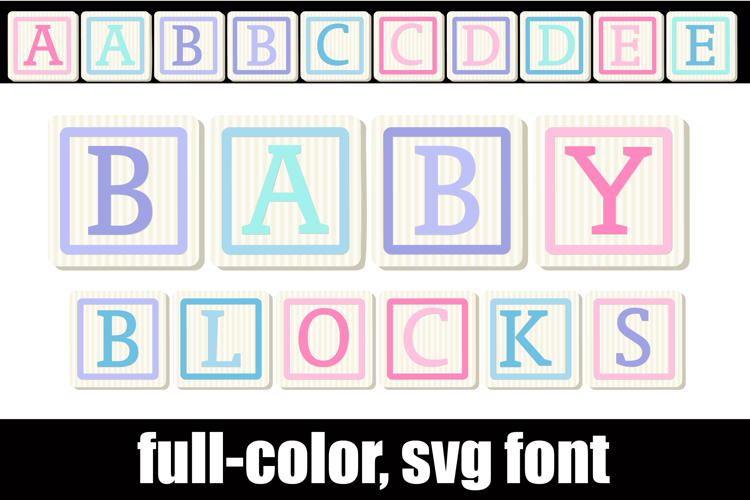
Baby Blocks Color Font
This hand-crafted font features a pastel color palette on children's blocks. There is an alt case of each letter with a different color combination.